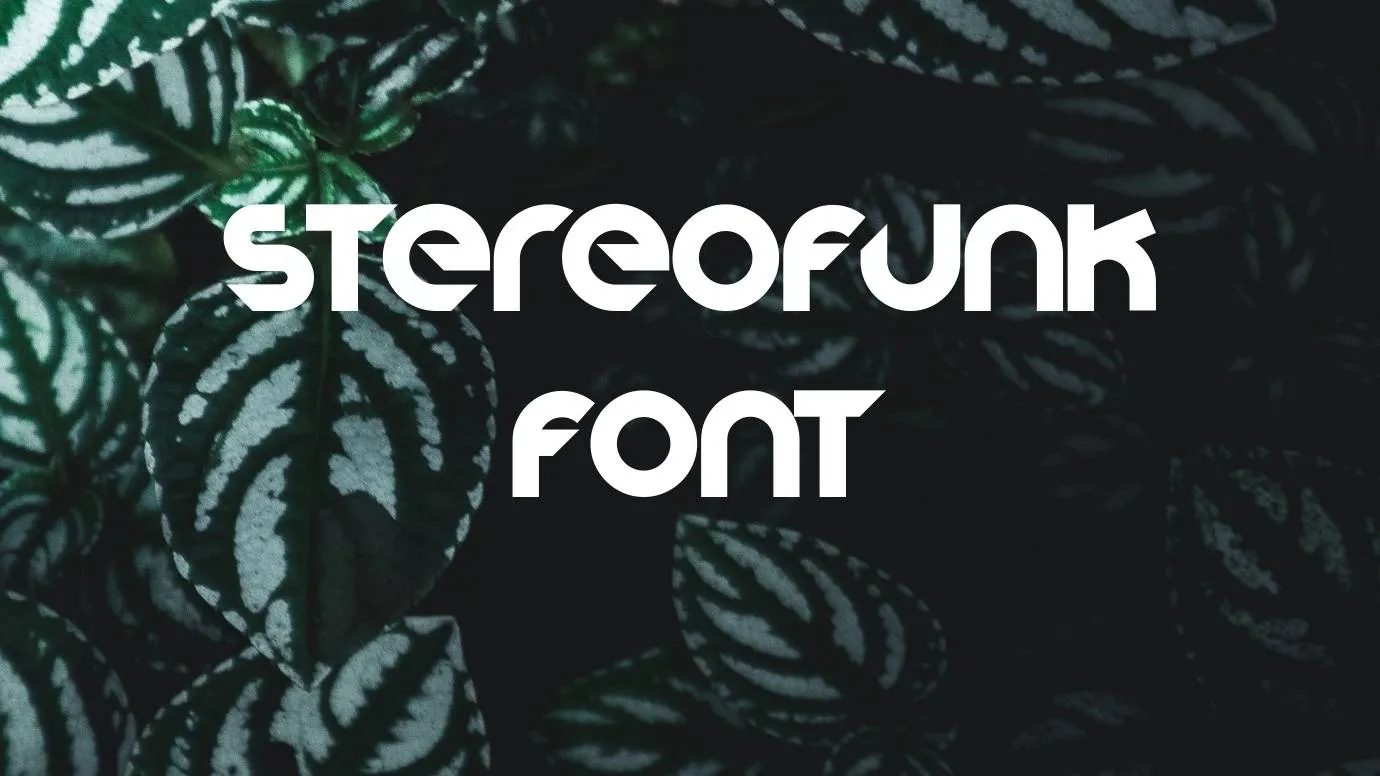
Stereofunk Font Family is a geometric sans serif typeface that was established for the first time by Alanbrowndesign. Due to its unique, ultra-modern, and lovely style characters, this typeface is so popular all over the world.
Stereofunk Font